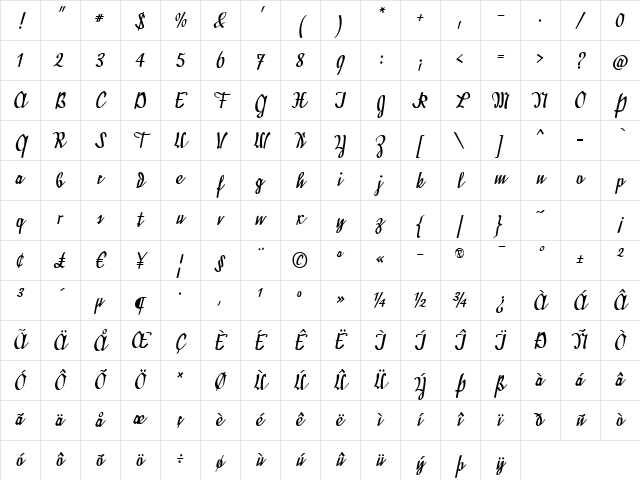
Divina Regular Free Font
Divina Regular
Design Context for Divina
Divina is a composed and adaptable typeface that performs quietly and consistently across a wide range of design contexts.